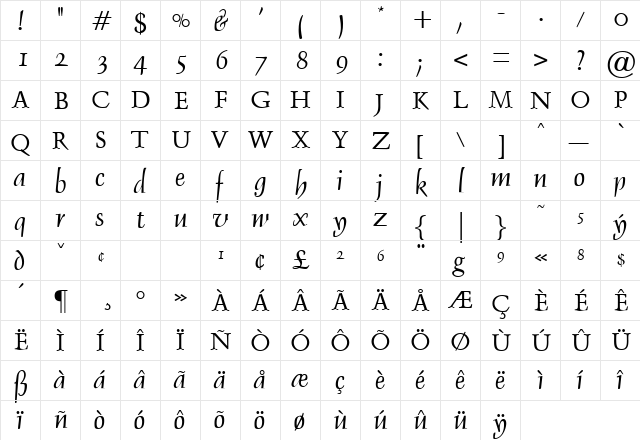
Debden Regular
Design Context for Debden Typeface
Debden offers clean, dependable letterforms without strong stylistic allegiance, making it a practical choice for designers who need flexibility.